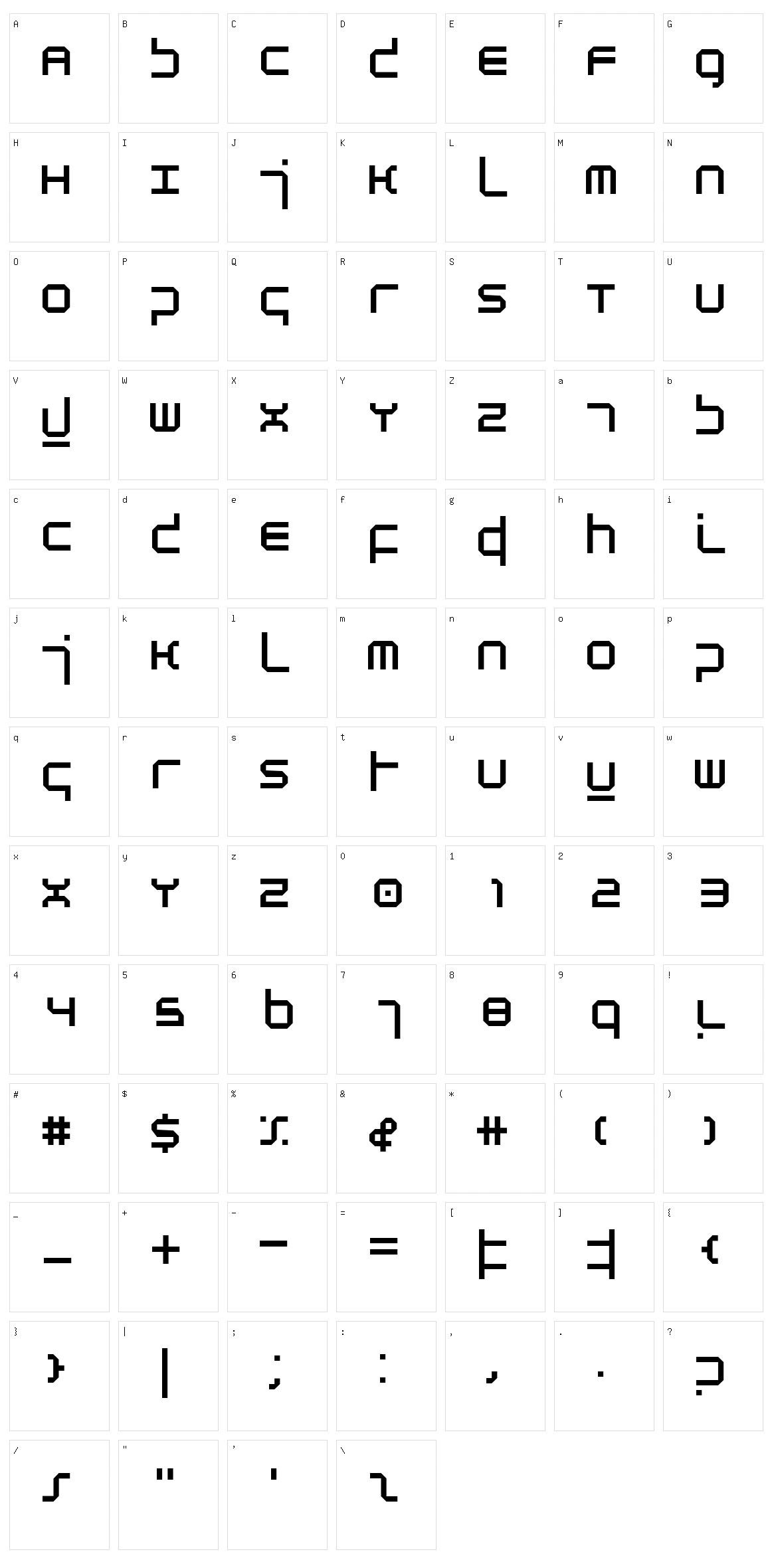
Atmosphere 1997, May 5th, 1997 by Jay Vidheecharoen for In Visible Studio
History
Wim Crouwel's new alphabet was a proposal for an alphabet that was designed to satisfy the requirements of cathode ray tube typesetting. This digital typeface was designed to utilize only horizontal and vertical lines, therefore diagonal lines were not to be used. Crouwel's designed proved effective for television screen viewing, but lacked enough legibility to make it an extremely functional typeface.
In 1988, British designer Peter Saville revived the designed on his album cover for Joy Division's "Substance" and on the single "Atmosphere". Emigre also used Crouwel's design on a piece entitled "Alienation".
About Atmosphere
Atmosphere was designed out of my own desire to have a version of Crouwel's typeface on the Mac and as a tribute to my favorite designer, Peter Saville. Atmosphere is my interpretation of Crouwel's new alphabet. Atmosphere retains the same square proportions as Crouwel's design, but the strokes are slightly thicker. While there is no uppercase version of this typeface, two partial versions have been provided, with some of the uppercase letters designed to be more legible. The lowercase letters more closely resemble the original designs. Atmosphere includes all the letters A-Z, numbers 0-9, and several punctuation, accent and mathematical symbols. Four versions of the typeface are included, a regular, light, bold, and rounded weight. All four contain the same character set.